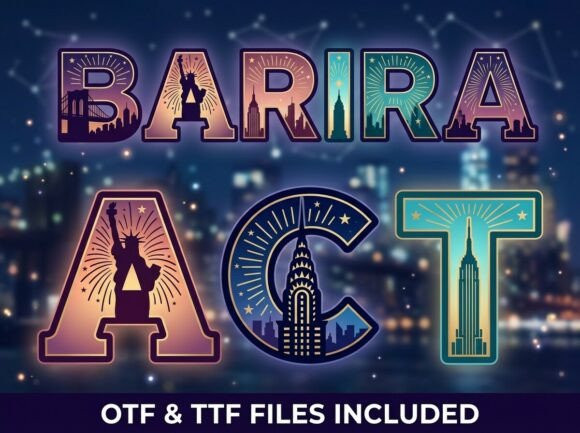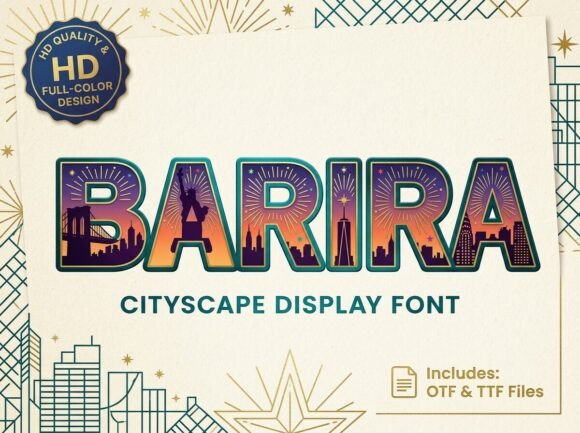
Barira Font: Elevate Your Designs with a Touch of Urban Luxury
Are you looking for a font that can add a touch of sophistication and glamour to your designs? Look no further than the Barira font, a stunning mono-weight display font from the Skyline Scripts collection. This unique font is perfect for designers and crafters who want to create eye-catching and memorable designs that evoke the spirit of New York City.
What is Barira Font?
Barira is a mono-weight display font that features capital letters that serve as windows into a golden-hour cityscape. Each letter is carefully crafted to showcase silhouettes of iconic New York City landmarks, including the Statue of Liberty, the Chrysler Building, and the Brooklyn Bridge. The font’s design is set against a twilight purple and gold gradient, giving it a luxurious and sophisticated feel.
Key Features of Barira Font
• Mono-weight design: Barira’s mono-weight design gives it a clean and modern look that’s perfect for display text.
• Unique lettering: Each capital letter features a unique cityscape design, making every word and phrase stand out.
• New York-themed: The font’s design is inspired by iconic New York City landmarks, making it perfect for designs that require a touch of urban luxury.
• Luxurious feel: The twilight purple and gold gradient gives Barira a sophisticated and glamorous feel that’s perfect for high-end designs.
Use Cases for Barira Font
Barira is a versatile font that can be used for a variety of design projects, including:
• New York-themed events: Whether you’re designing invitations, posters, or social media graphics for a New York-themed event, Barira is the perfect font to evoke the spirit of the city.
• Cinematic travel branding: If you’re creating branding materials for a travel company or a film production, Barira’s luxurious feel and New York City inspiration make it an excellent choice.
• Urban luxury designs: Barira’s sophisticated design makes it perfect for luxury brands that want to evoke the glamour and sophistication of New York City.
Tips for Using Barira Font
To get the most out of Barira, here are a few tips to keep in mind:
• Use it sparingly: Barira’s unique design makes it perfect for display text, but it can be overwhelming if used excessively. Use it sparingly to create emphasis and add visual interest.
• Pair it with a simple font: Barira’s bold design can be paired with a simple font to create a striking contrast. Choose a clean and modern sans-serif font to balance out Barira’s luxurious feel.
• Experiment with colors: While Barira’s twilight purple and gold gradient is stunning, don’t be afraid to experiment with different colors to create a unique look that suits your brand.
Barira is a unique and luxurious font that’s perfect for designers and crafters who want to add a touch of urban sophistication to their designs. With its mono-weight design, unique lettering, and New York City inspiration, Barira is the definitive choice for designs that require a touch of glamour and sophistication. Whether you’re creating branding materials, event invitations, or social media graphics, Barira is sure to elevate your designs and leave a lasting impression.